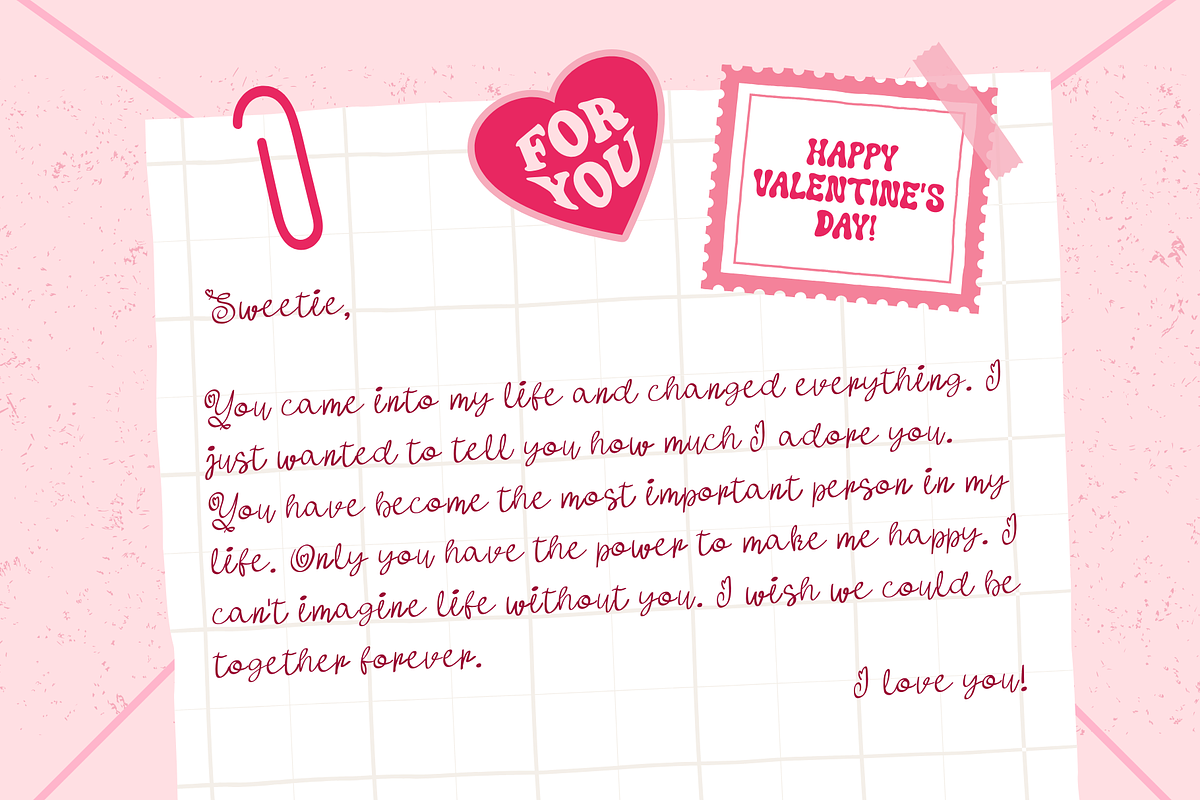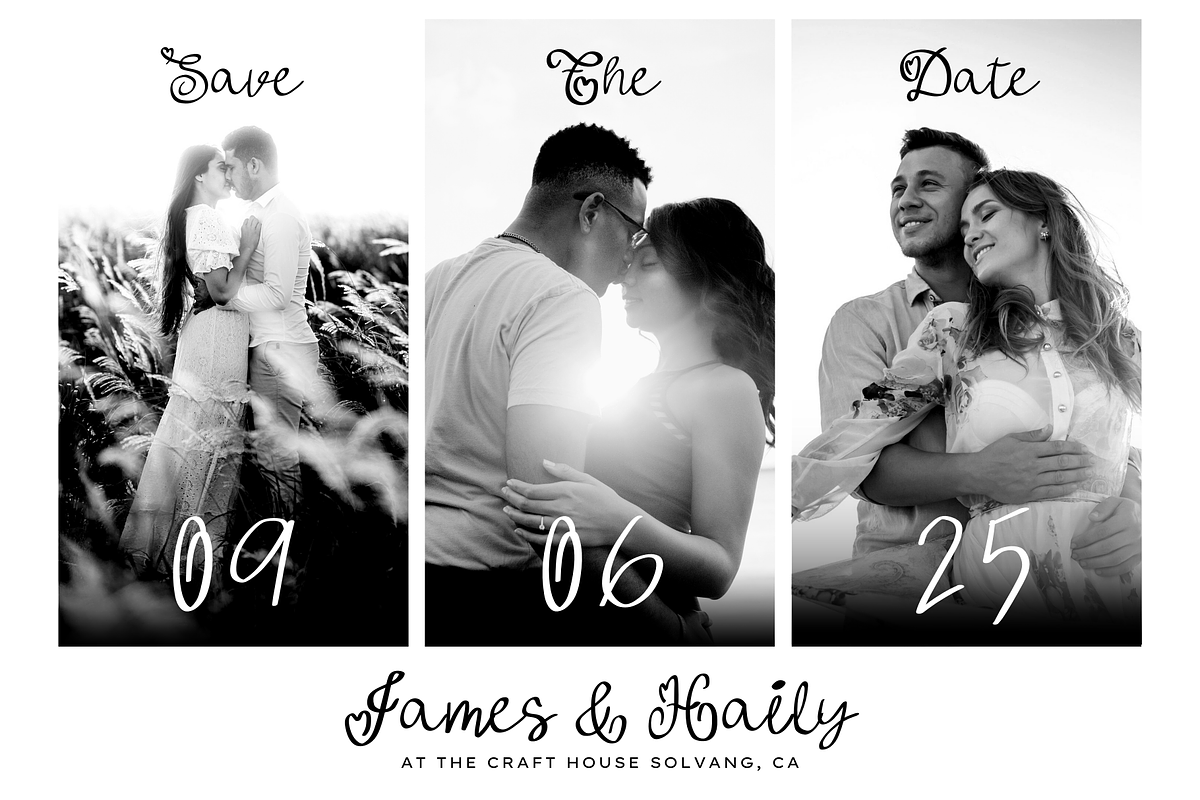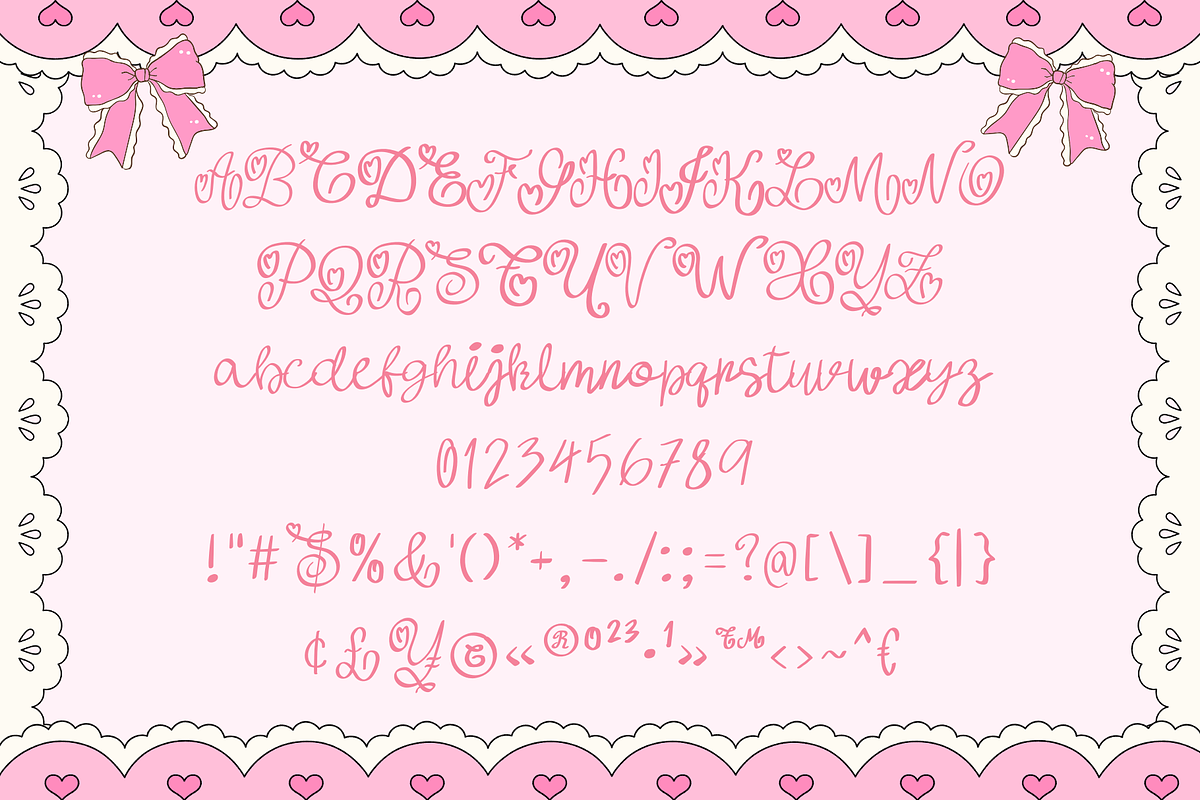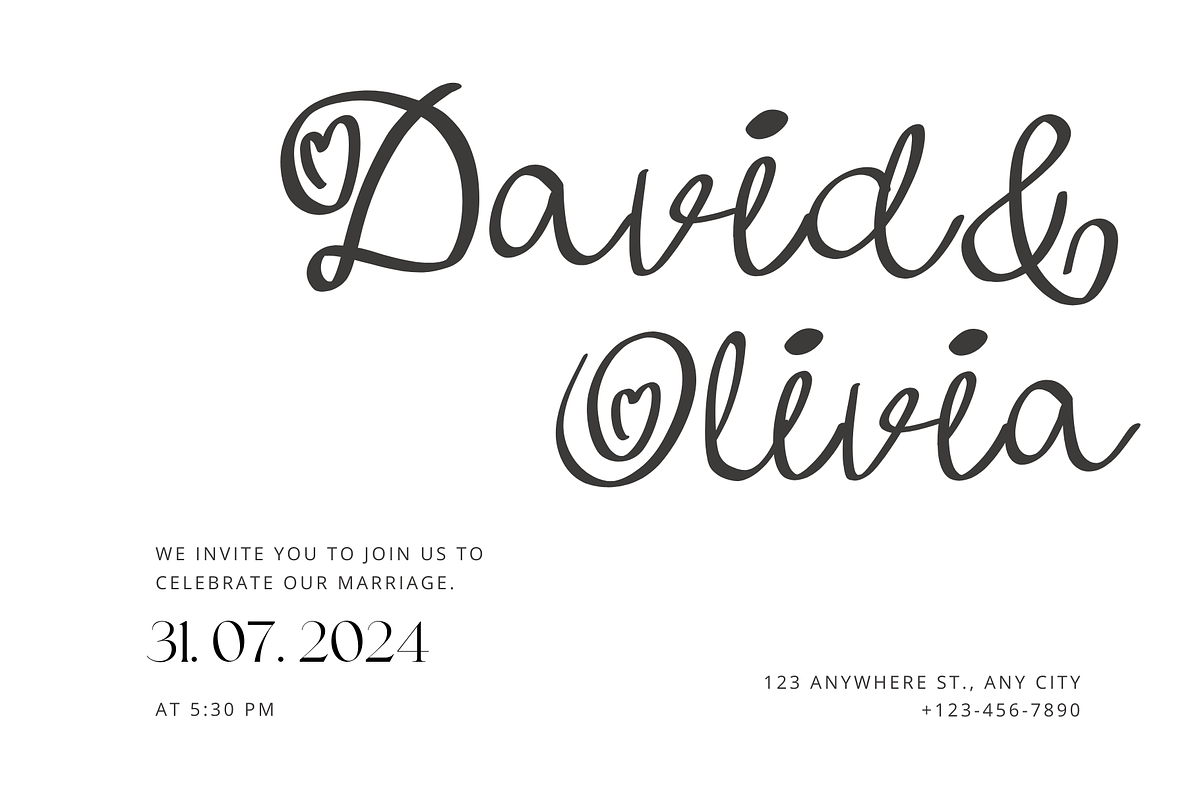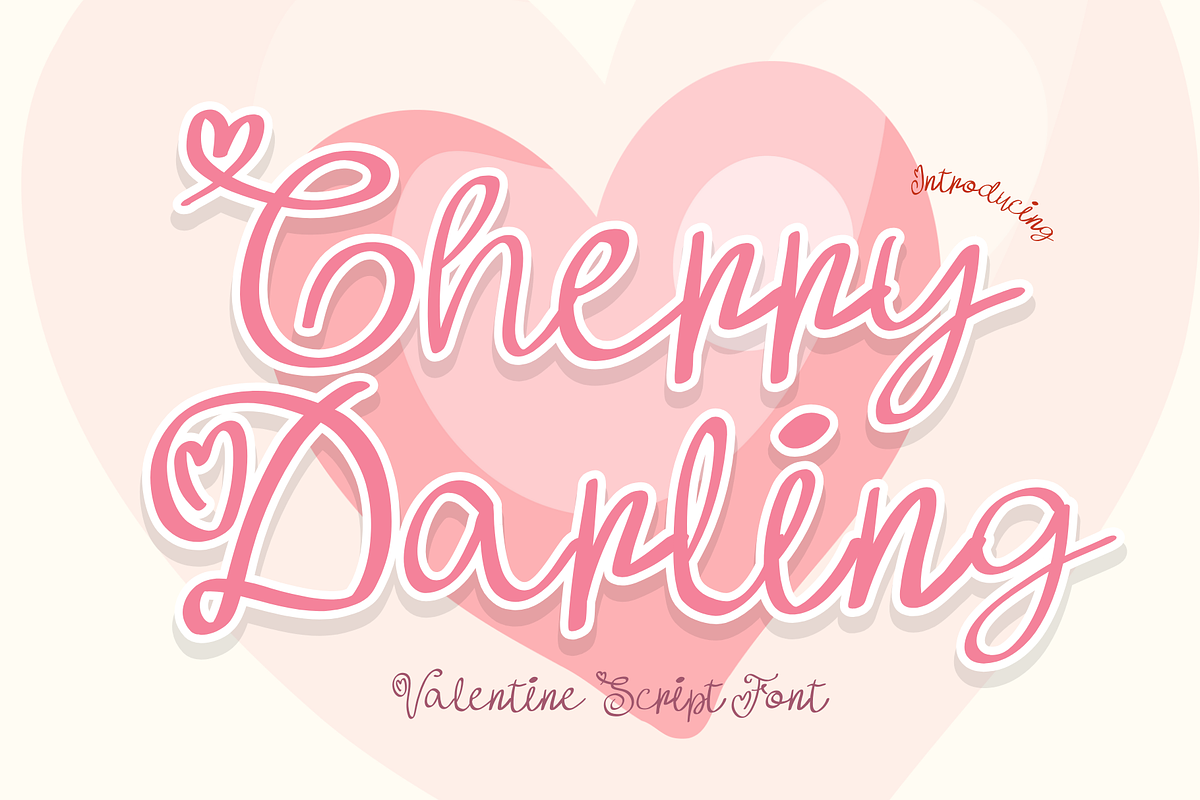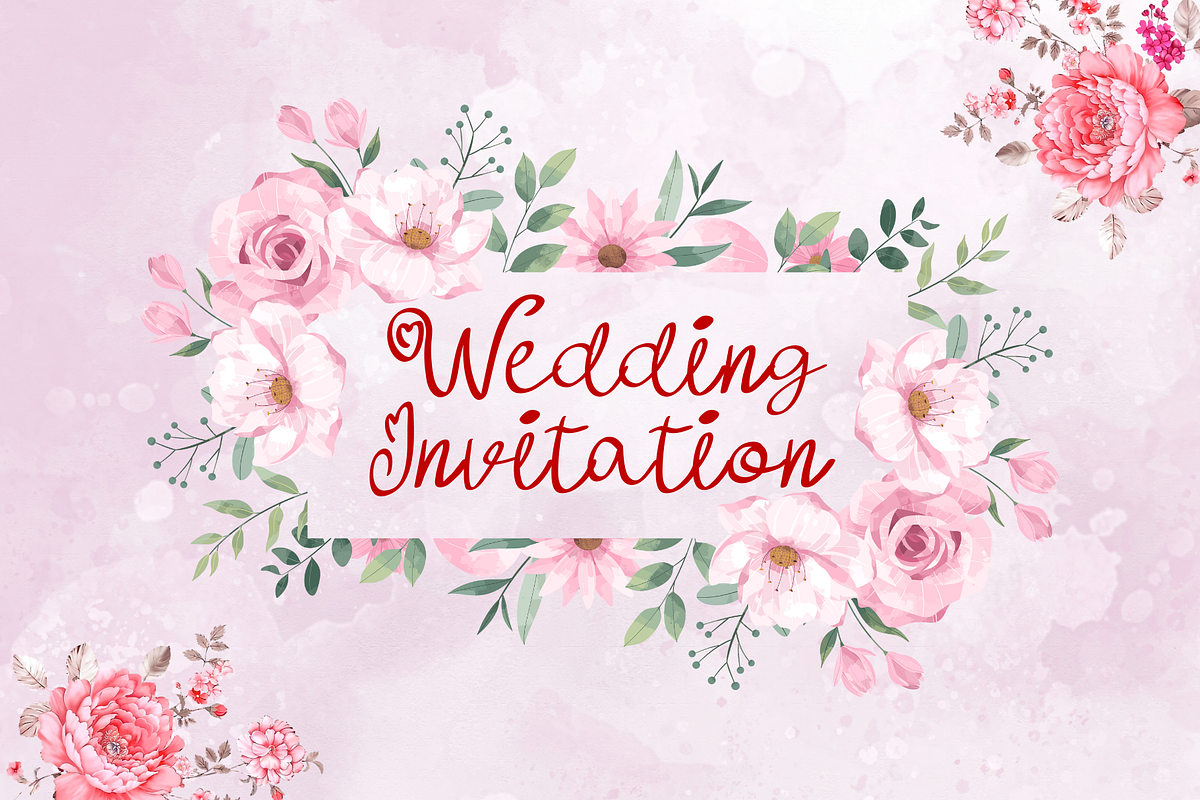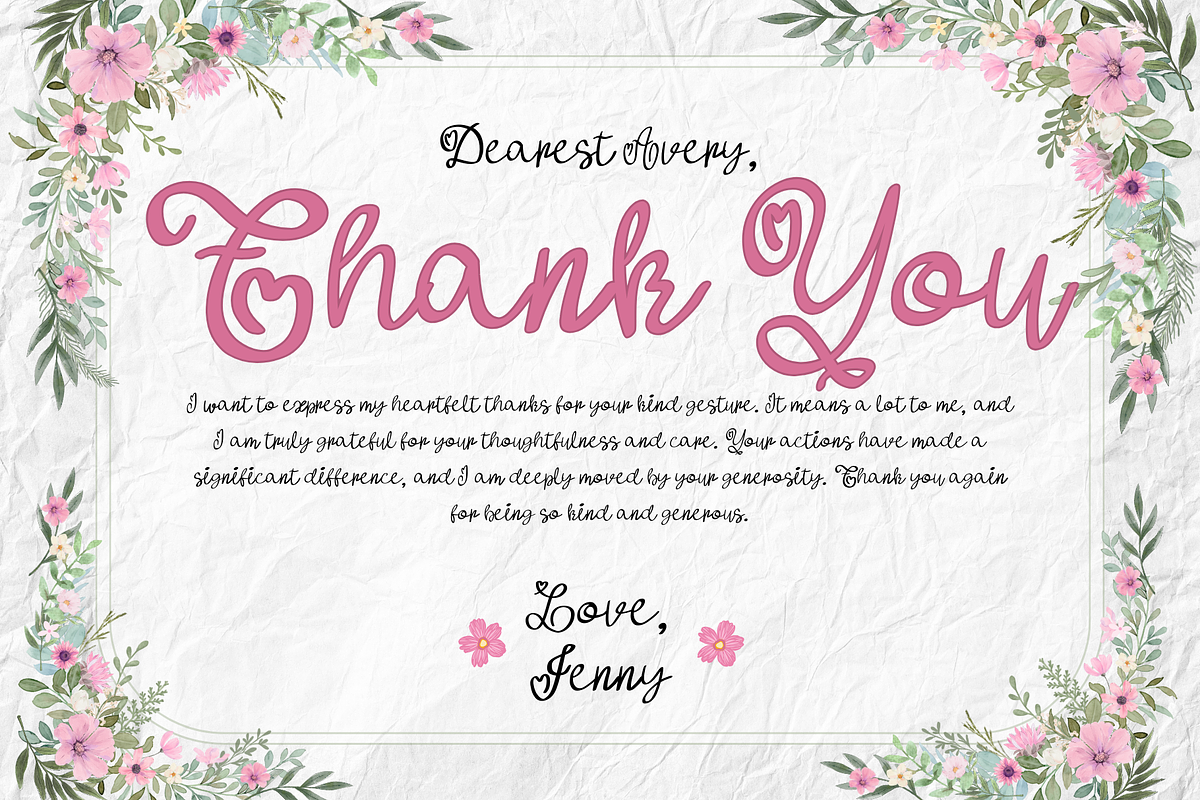
Cherry Darling is Script Font
Celebrate the season with Cherry Darling, a charming handwritten script font designed to bring warmth, cheer, and festive elegance to your holiday projects. Its flowing strokes and playful curves capture the true spirit of Valentine' s Day, making every design feel magical and inviting.